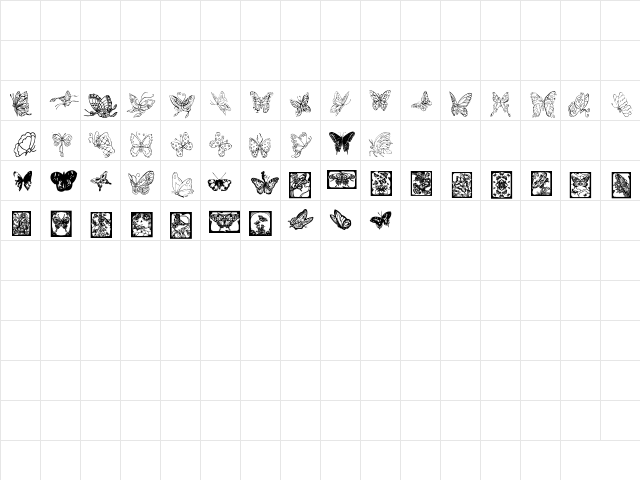
LSButterflies Regular
| Designer | SaraCom - LadySara |
Design Context for LSButterflies Typeface
LSButterflies is a composed and adaptable typeface that performs quietly and consistently across a wide range of design contexts.